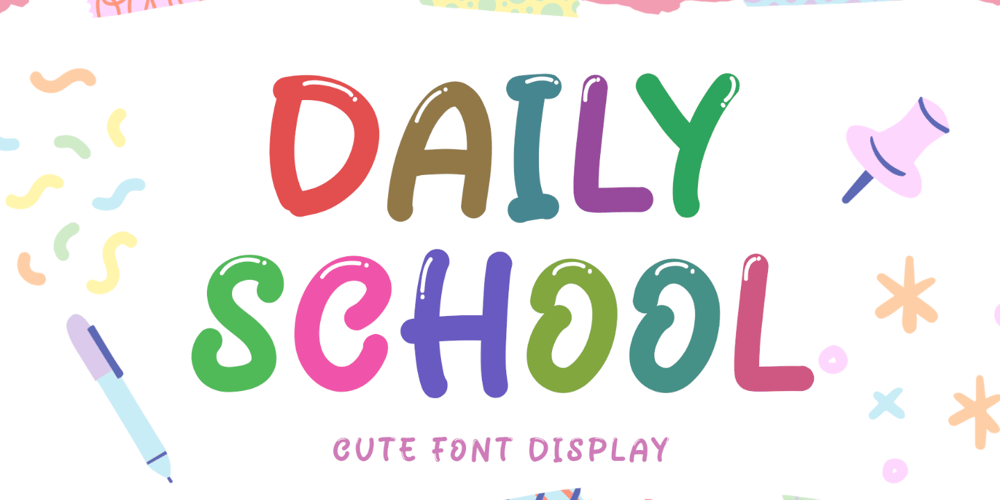
Daily School Font Family was designed by Isroni Yoga Prasetya and published by Yoga Letter. Daily School contains 1 styles and family package options. “Daily School” is a cute display font. This font is equipped with uppercase, lowercase, numerals, punctuations and multilingual support. Very suitable for back to school, summer, kids, children, birthday, Christmas, teachers, father’s day, comics, magazines and others.